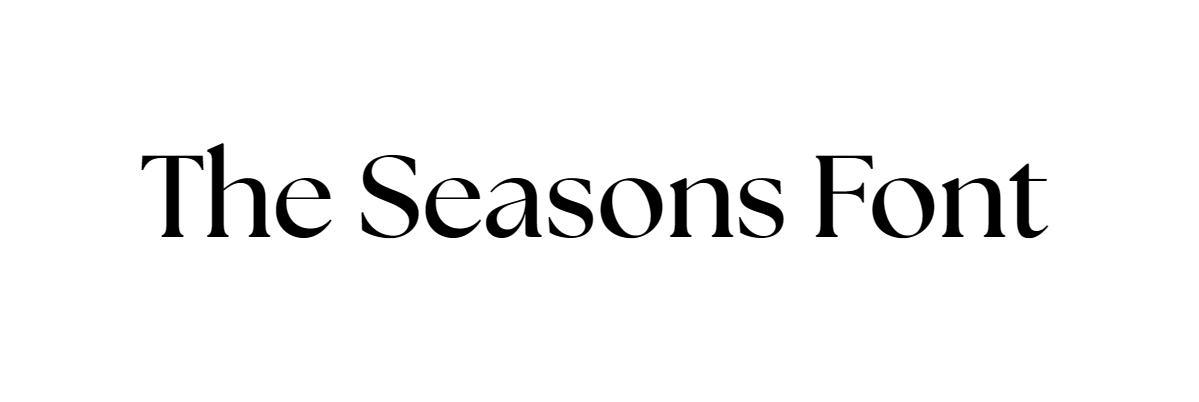
The Seasons Font
The Seasons
The Seasons is a serif font made by Elena Genova. Small strokes at the ends of its letters (the serifs) give it a classic, trustworthy look. The free download includes three styles, and you can try every one of them with your own text in the preview above.
The Seasons Font Details
- Designer: Elena Genova
- Font styles: 3 (Regular, Bold and Italic)
- Glyphs: 96 in the Regular style
What You Can Type With The Seasons
With complete upper and lowercase letters and all ten digits, The Seasons is ready for real wording, not just a single headline. Common punctuation such as &, !, ? and @ is included as well. It doesn't include accented letters such as é or ñ, which makes it an English-only font.
Where The Seasons Works Best
Think of The Seasons for book covers, magazine headlines and classic branding. Serif fonts shine in headlines and printed text. For long paragraphs on phones, check that it still reads well at small sizes. Because the family has more than one style, you can mix them in a single design for headings, subheadings and highlights.
Does The Seasons support accented letters?
No. The Seasons has no accented letters such as é, ñ or ü, so it's best for English text.